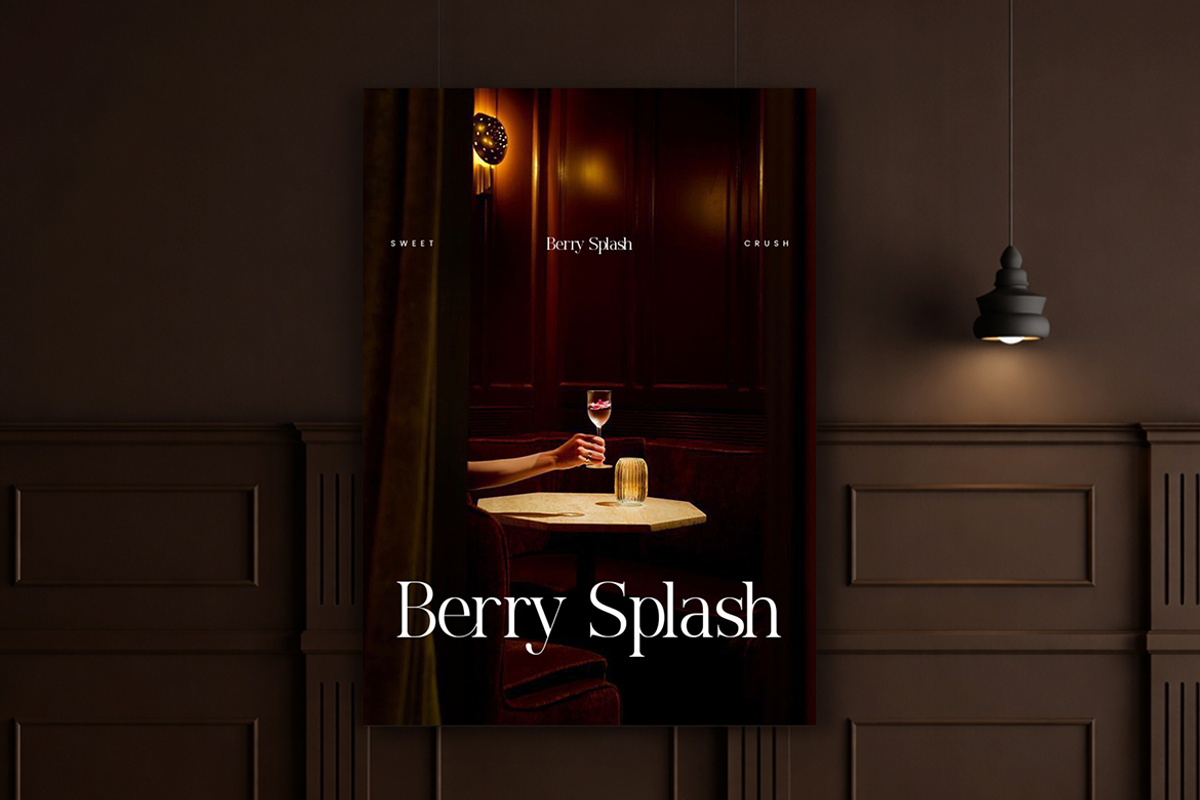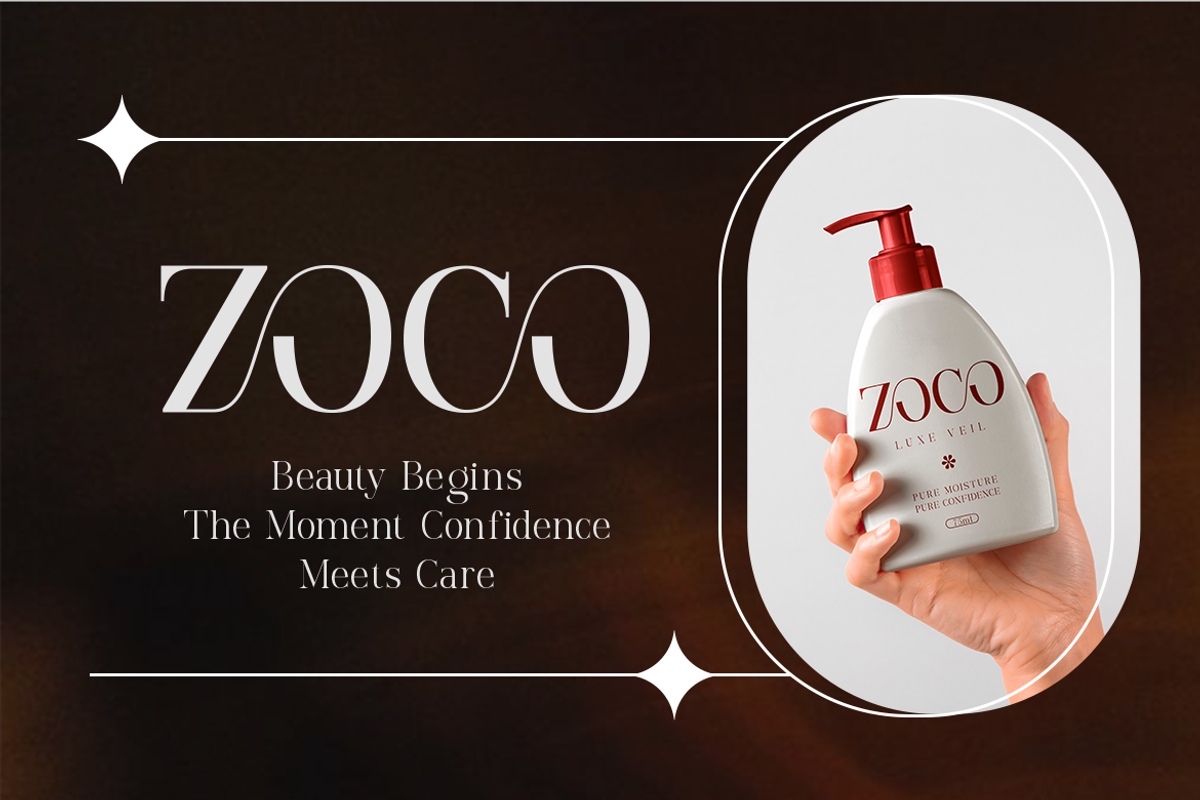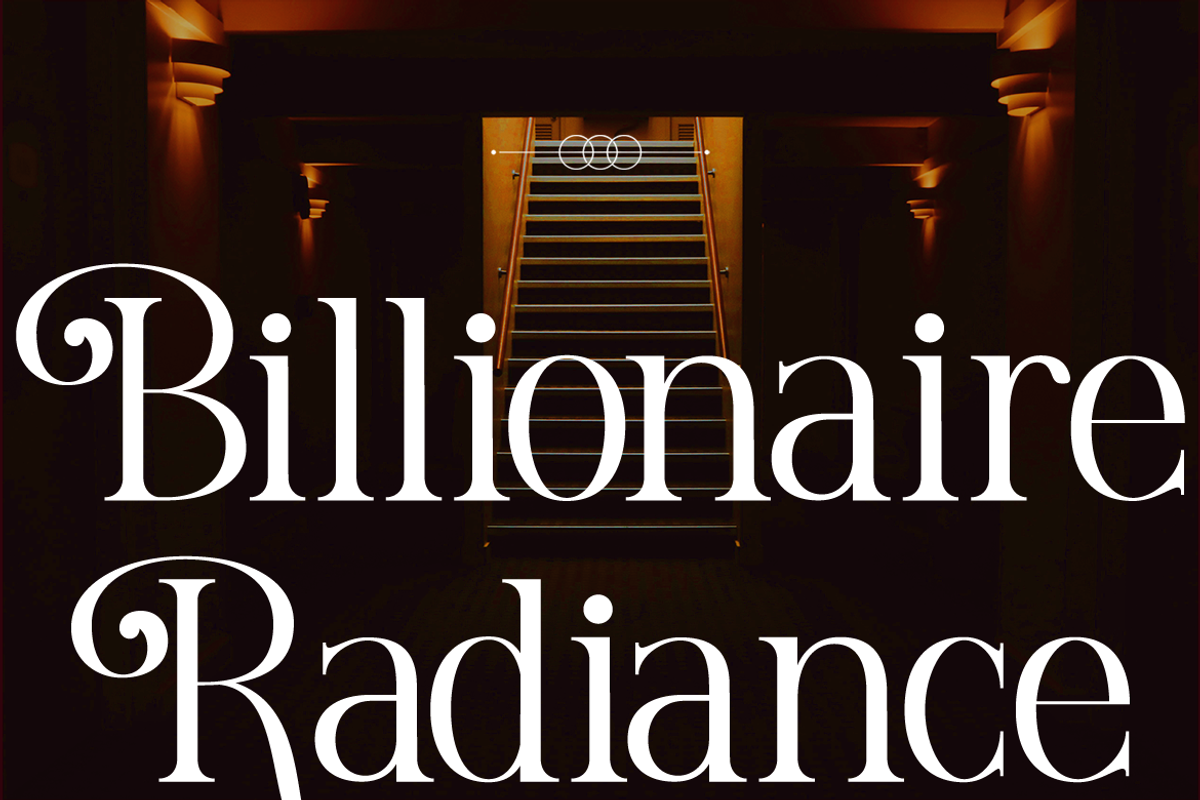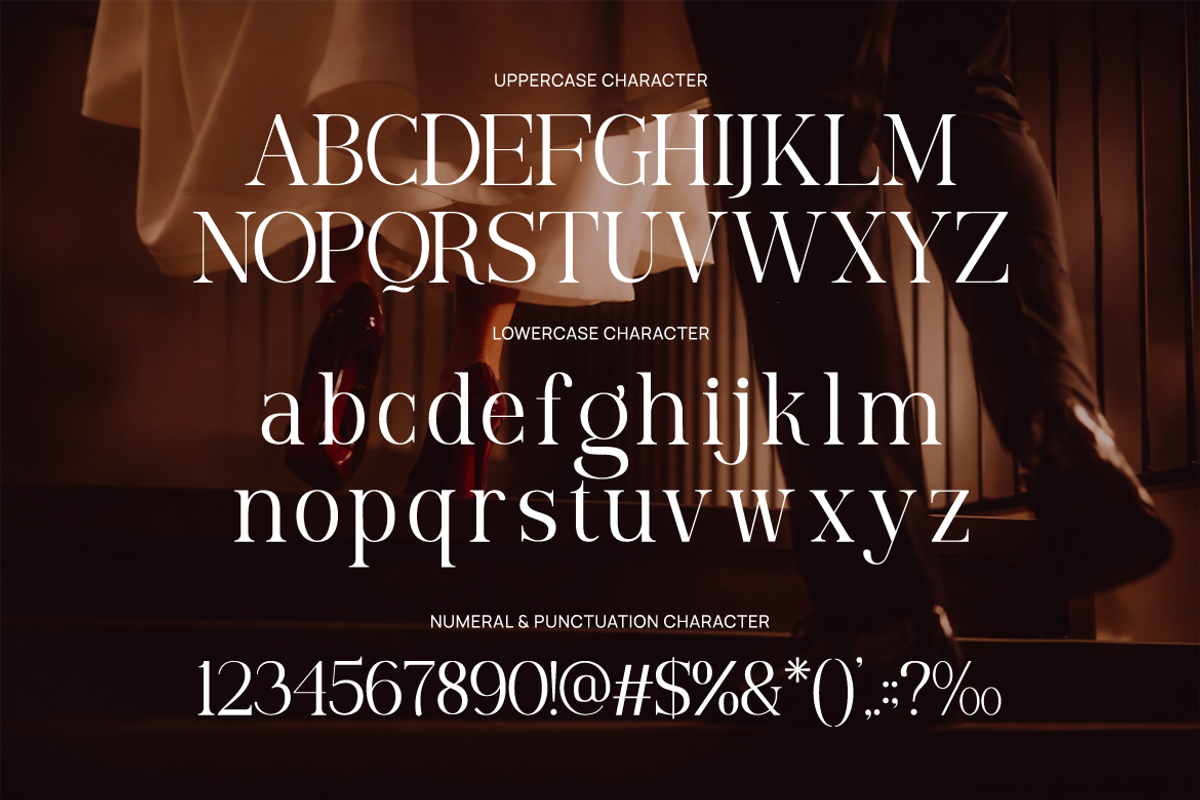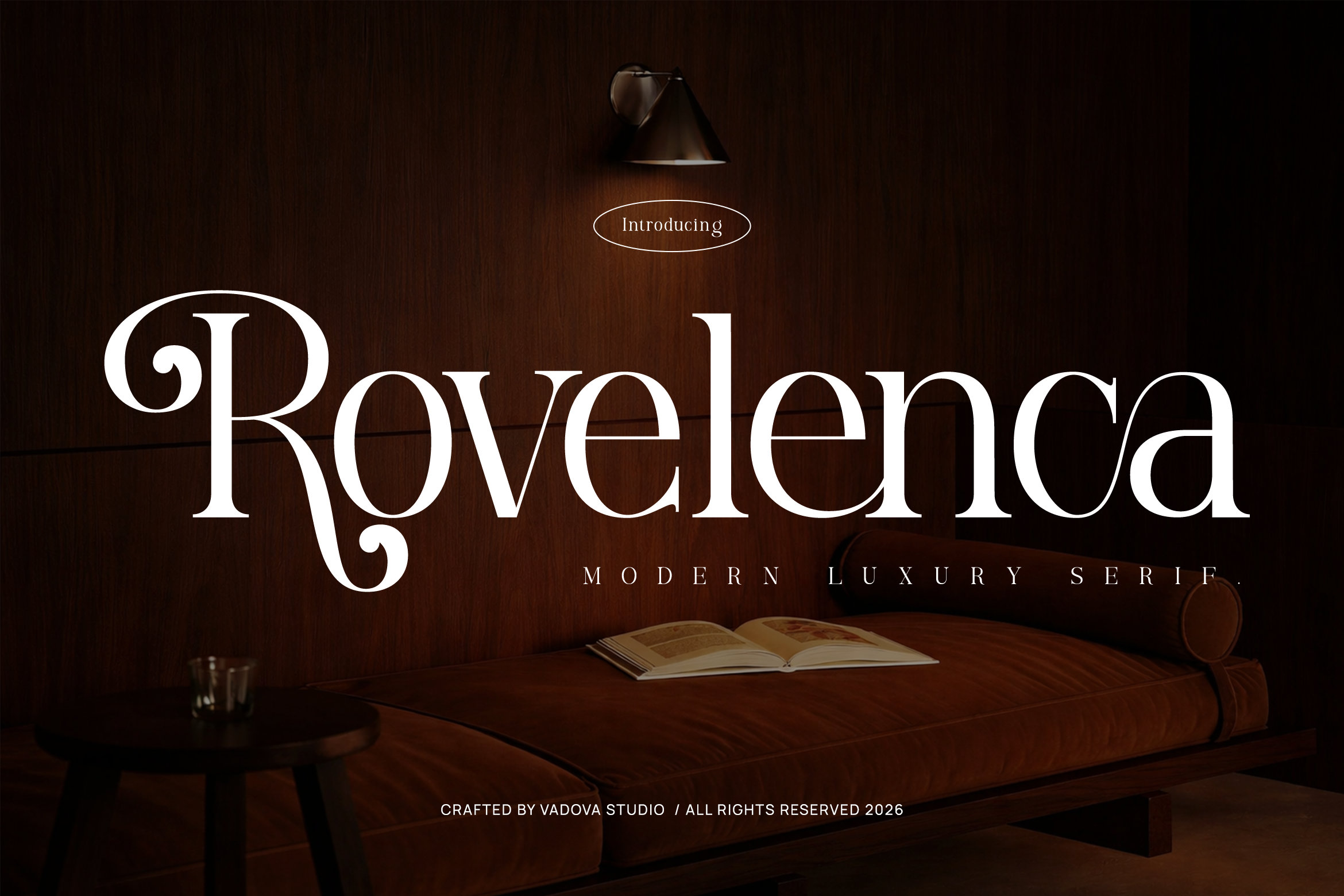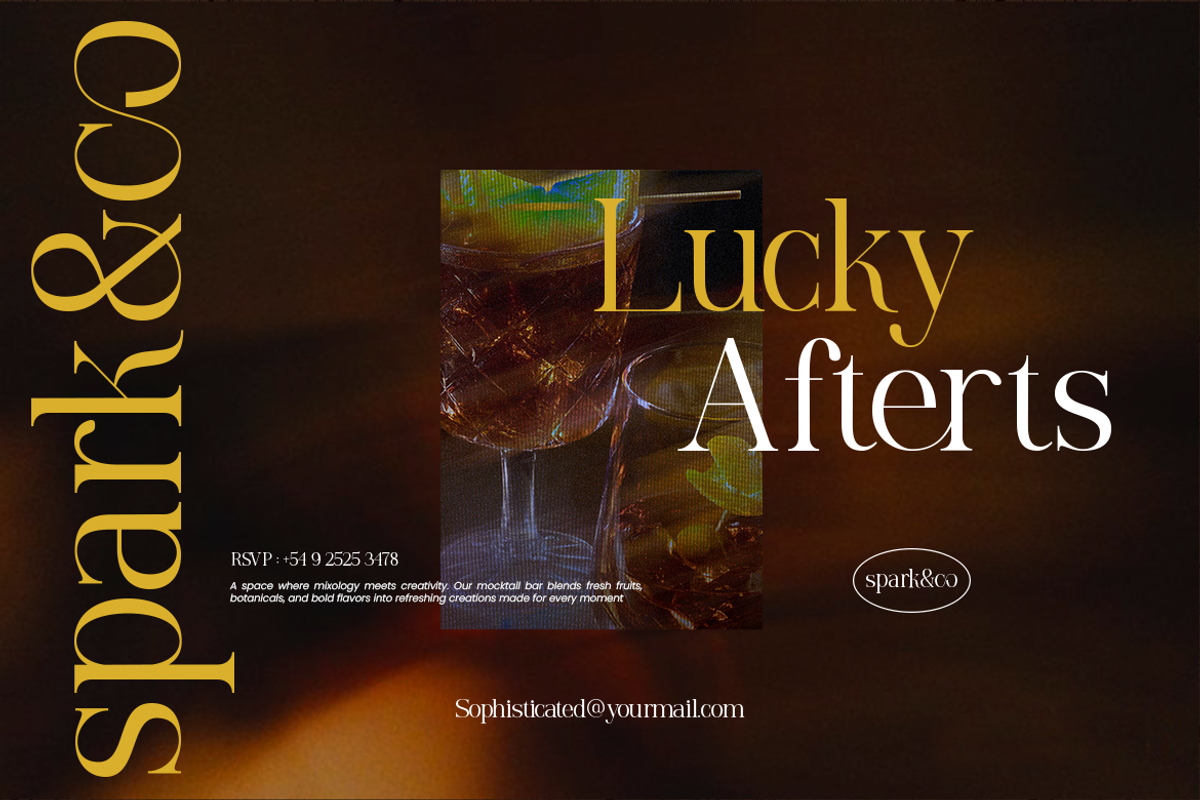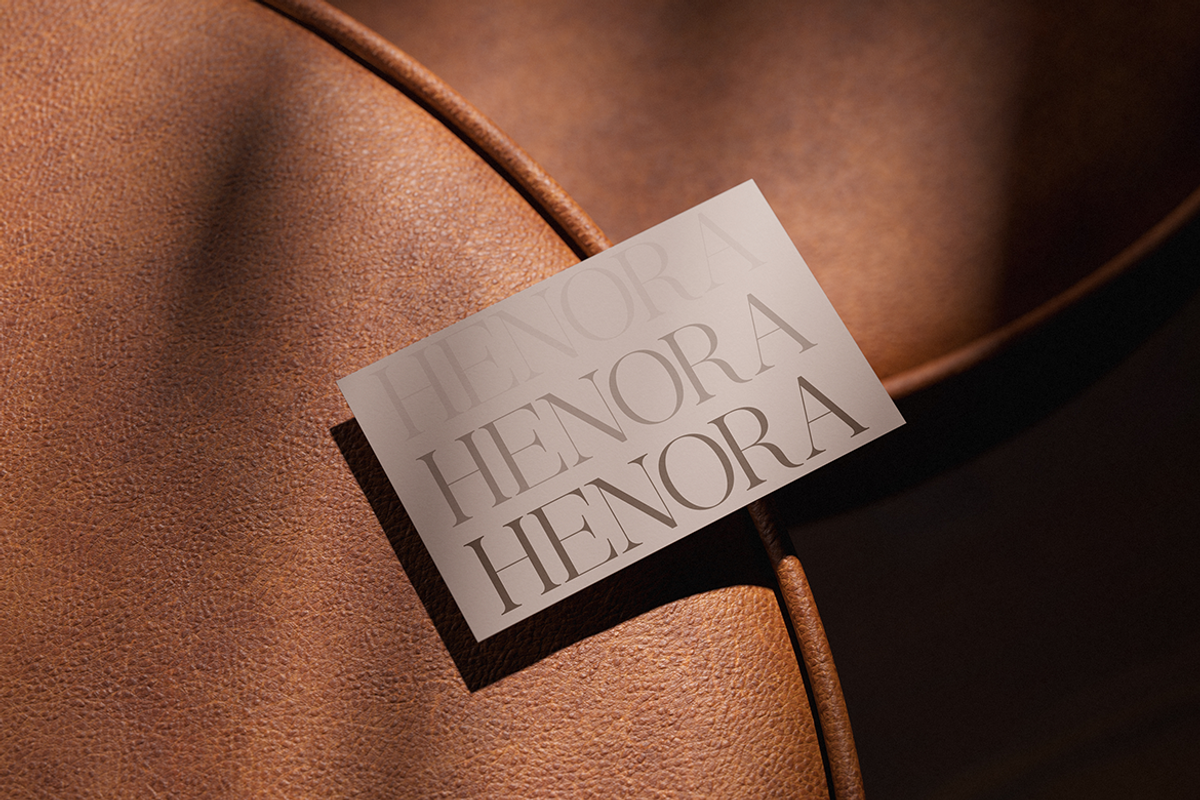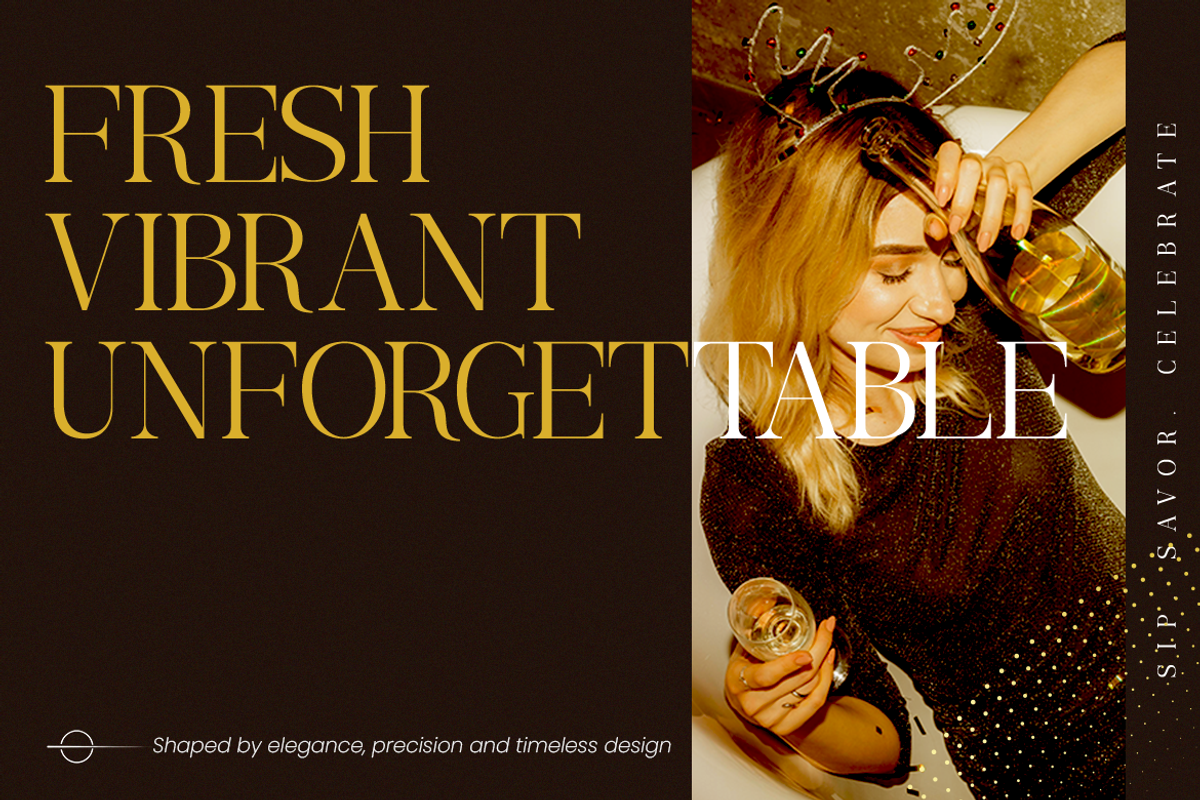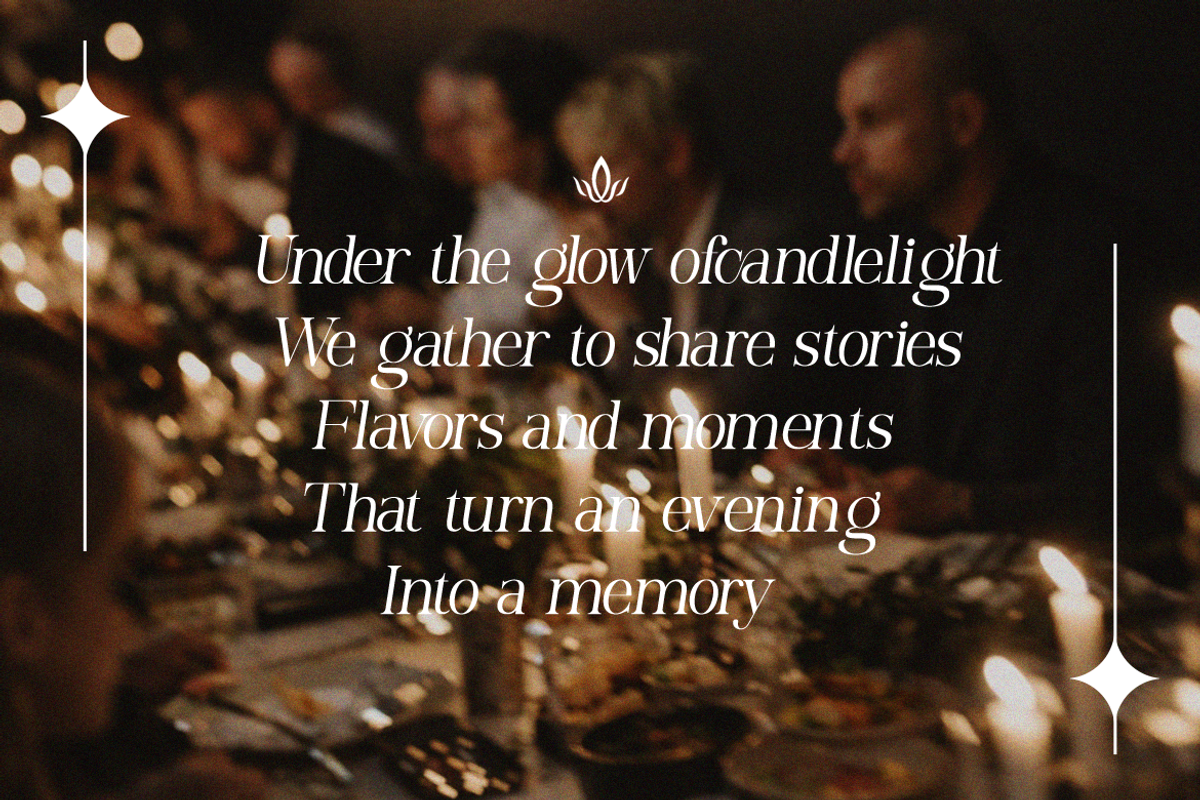
Rovelenca Modern Luxury Serif Font
Rovelenca Modern Luxury Serif showcases a refined serif typeface with elegant contrast, graceful curves, and distinctive high-end detailing. The font package includes uppercase, lowercase, numerals, and punctuation. Its sophisticated structure enhances readability while delivering a premium editorial and branding presence across both print and digital formats.
Relevance and Use Cases is perfect for luxury branding, fashion editorials, high-end product packaging, premium logo design, beauty and cosmetic campaigns, wedding invitations, boutique branding, magazine layouts, hotel and hospitality visuals, and sophisticated marketing materials that require an elegant and timeless typographic identity.
- High-contrast luxury serif with refined thick–thin stroke transitions
- Elegant calligraphic influence in select characters for a graceful tone
- Sharp yet delicate serifs that enhance sophistication and readability
- Smooth curves paired with elongated proportions for a premium feel
- Balanced spacing optimized for editorial headlines and luxury layouts
- Luxury brand identity and high-end logo design with refined aesthetics
- Editorial layouts for fashion magazines, lookbooks, and publications
- Premium packaging design for beauty, perfume, and boutique products
- Wedding invitations and elegant event stationery with a classic touch
- Social media visuals and campaigns focused on luxury lifestyle branding